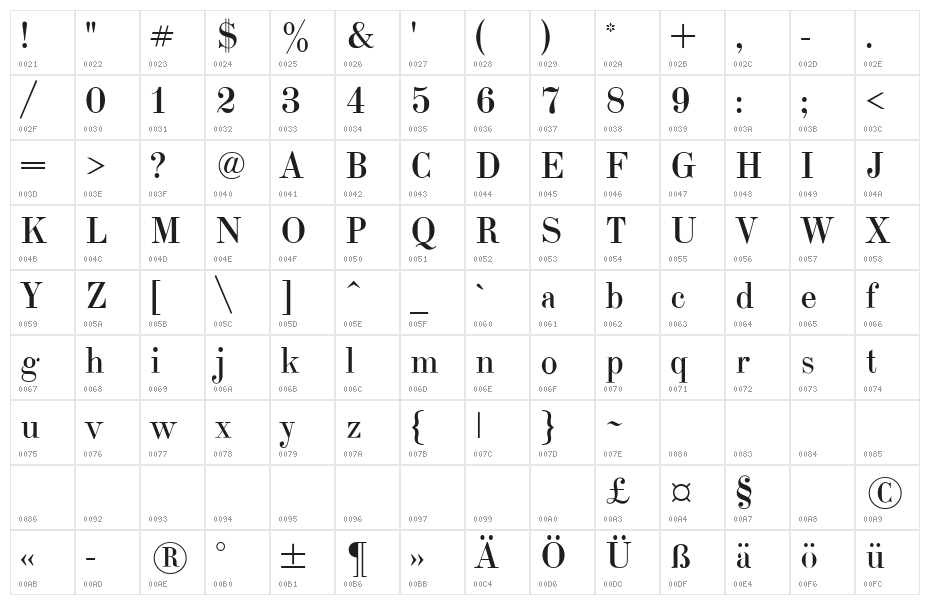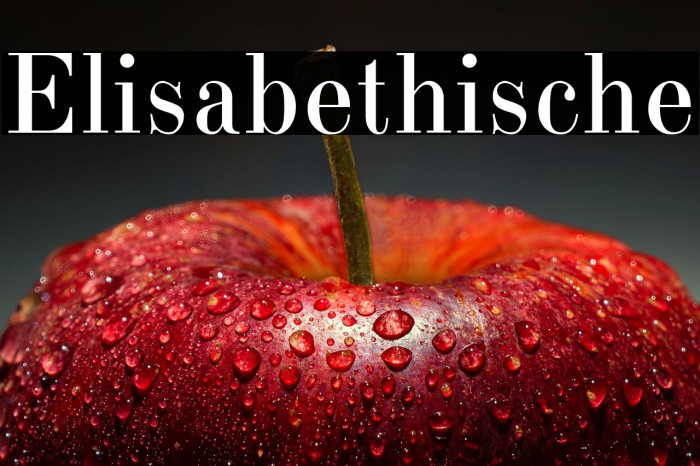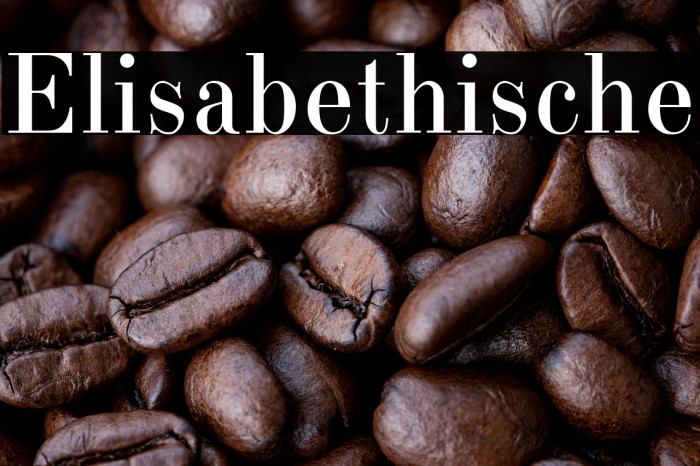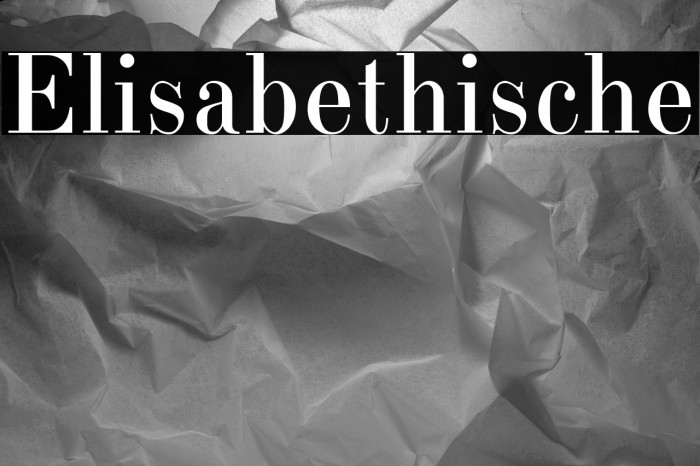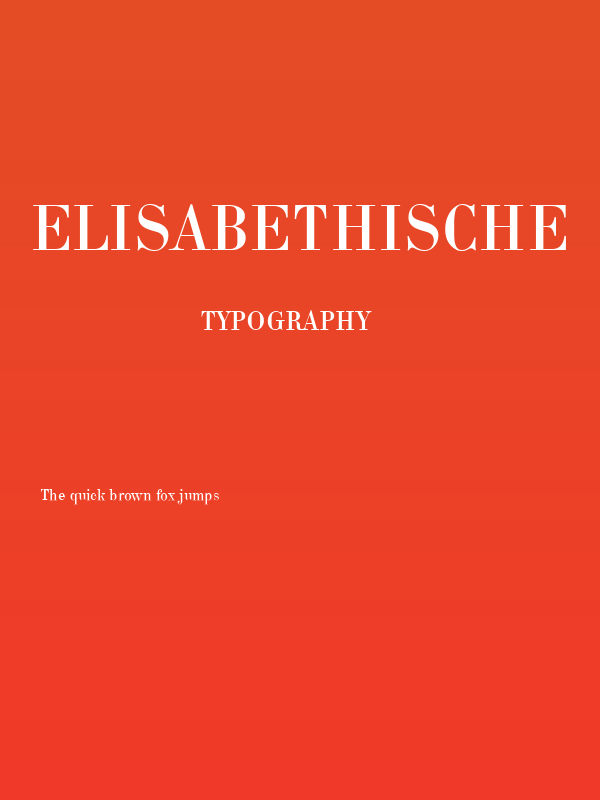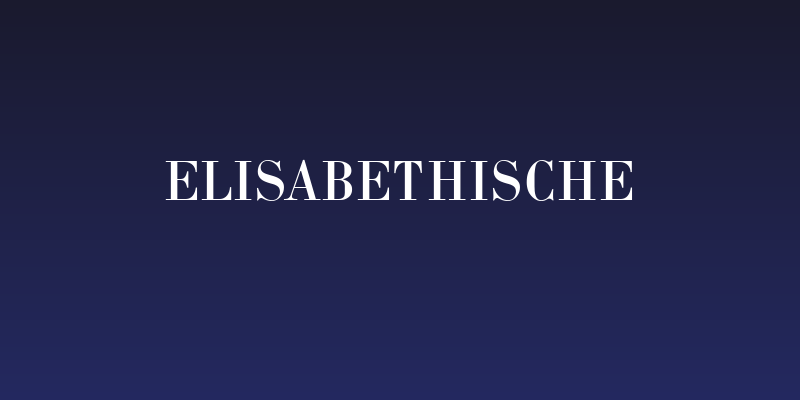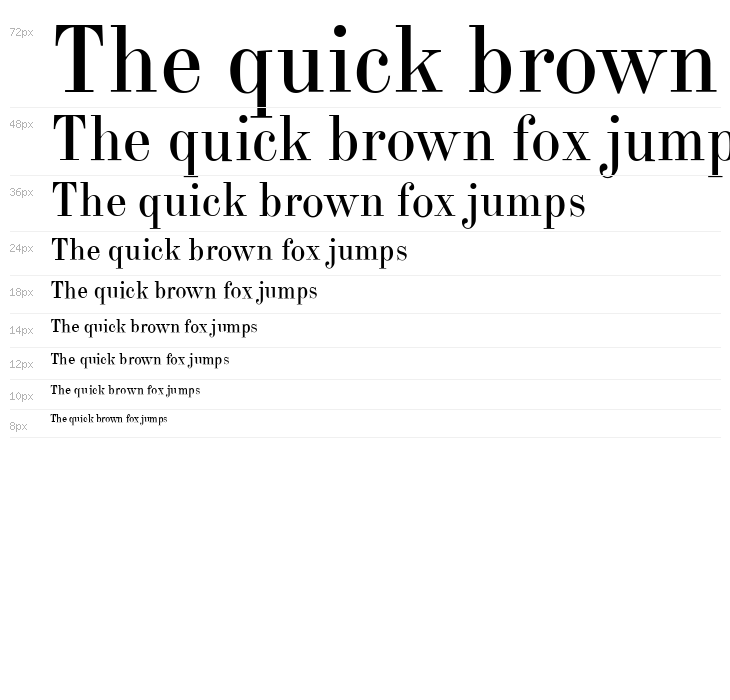
Elisabethische Font
Elisabethische Description
This font exudes a classic elegance with its high contrast between thick and thin strokes, characteristic of traditional serif typefaces. The serifs are pronounced and bracketed, adding a touch of sophistication and readability. The uppercase letters are stately and well-proportioned, while the lowercase letters maintain a graceful flow, making it suitable for both formal and artistic applications. The numerals are distinct and clear, ensuring legibility in various contexts. Special characters are designed with the same attention to detail, enhancing the font's versatility.
Overall StyleClassic
Proposed ProjectsIdeal for book covers, editorial design, formal invitations, and branding that requires a touch of tradition and elegance.